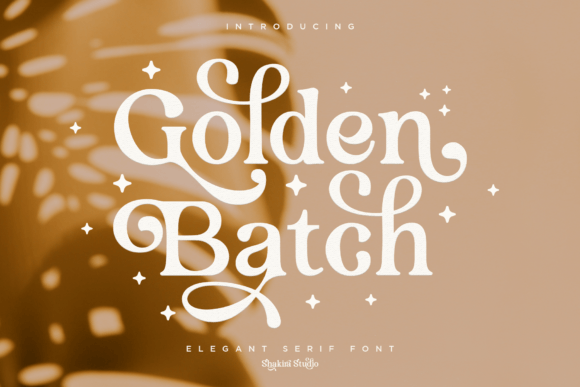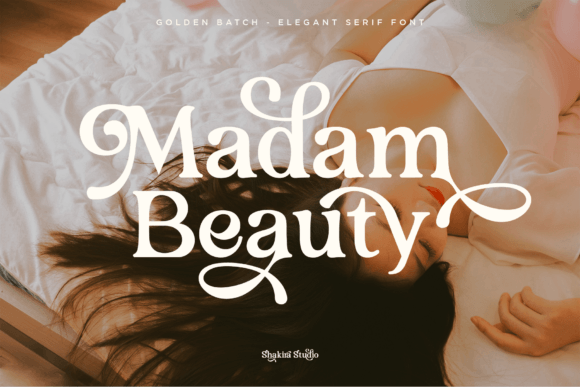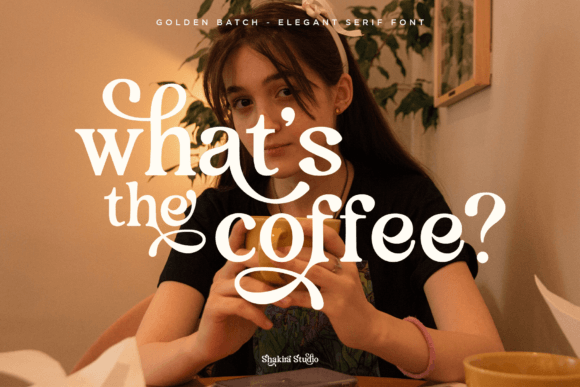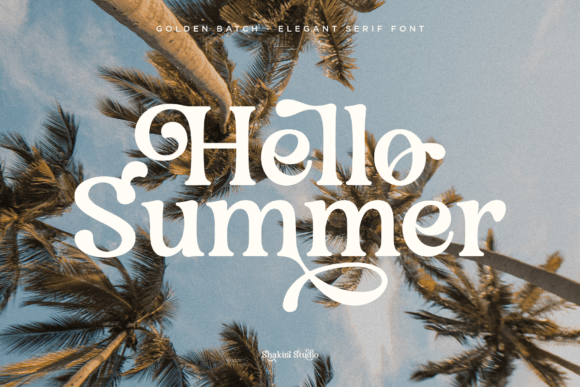
Golden Batch Font
About the Golden Batch Font
Get ready to be inspired by Golden Batch Font, a fresh and dynamic typeface for modern creators. Golden Batch is an Elegant Serif Font. Create bold, gorgeous headlines and elegant designs with a vintage flair. Its contrasting lines and curved terminals give a sleek, elegant look to logos, holiday cards, wedding invitations, quotes, advertisements, and more.
Golden Batch excels in display applications such as headlines, logos, and short-form text within branding materials and marketing collateral. Its vintage flair makes it ideal for packaging design, particularly for products emphasizing luxury or heritage. However, its elegant serifs and relatively high x-height make it less suitable for extended body copy or user interface elements where readability at smaller sizes is crucial.
Consider pairing Golden Batch with a clean sans-serif like Montserrat for a modern contrast, or a playful script font like Great Vibes for a more whimsical feel. A geometric sans-serif such as Lato could also work well, providing a structured counterpoint to Golden Batch’s more organic forms.
The font possesses a sophisticated and refined personality, leaning towards elegance and a sense of classicism. It’s best suited for brands and projects that aim for a timeless, high-quality aesthetic.